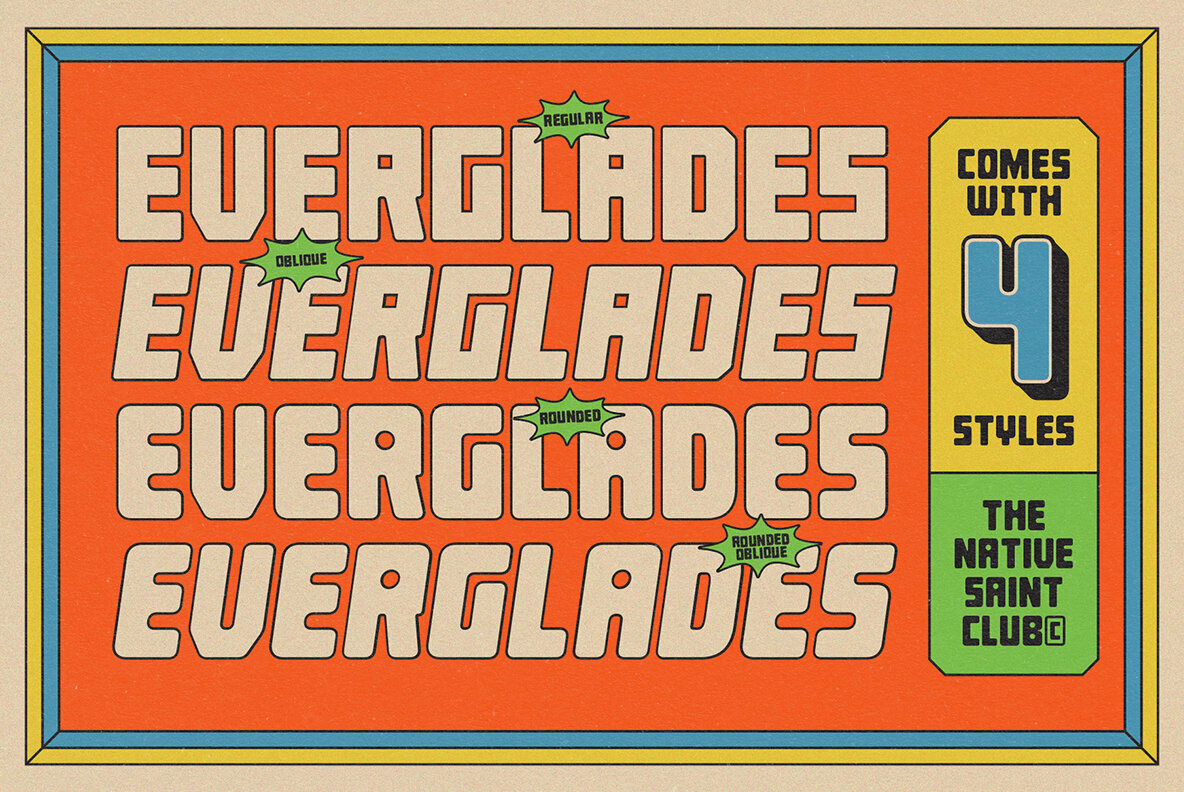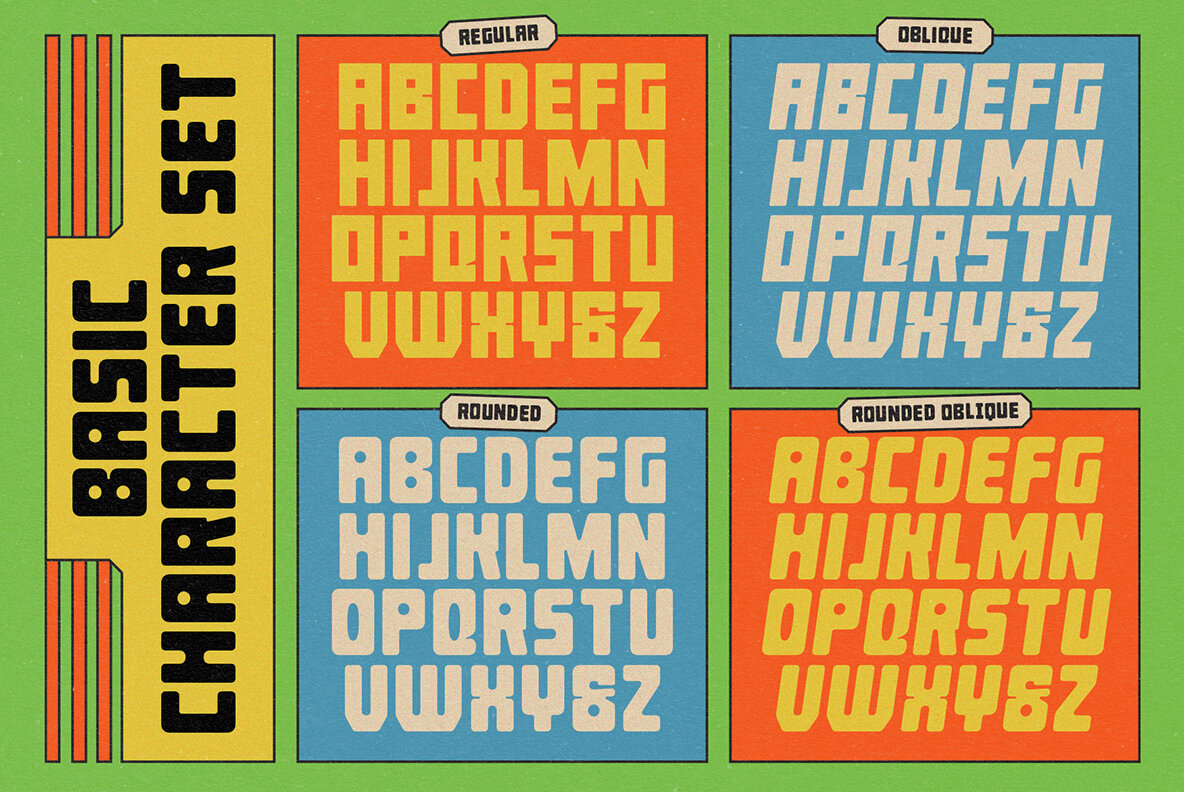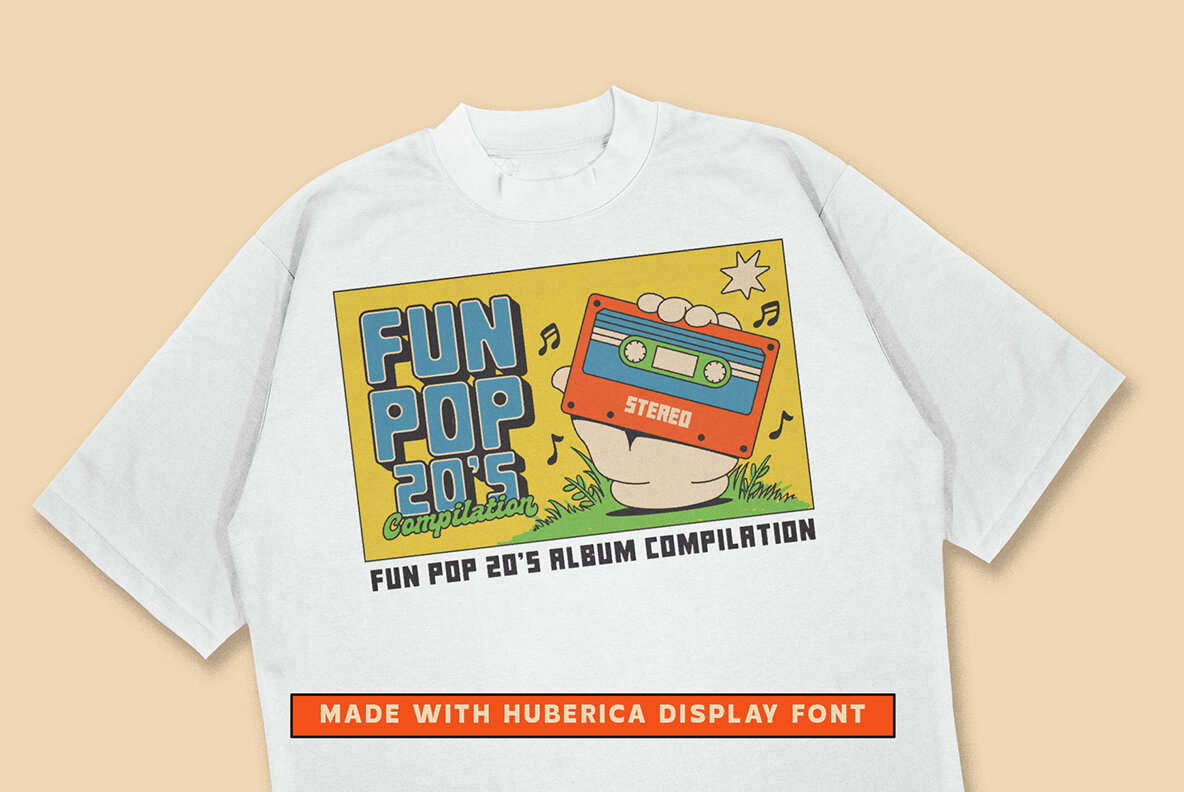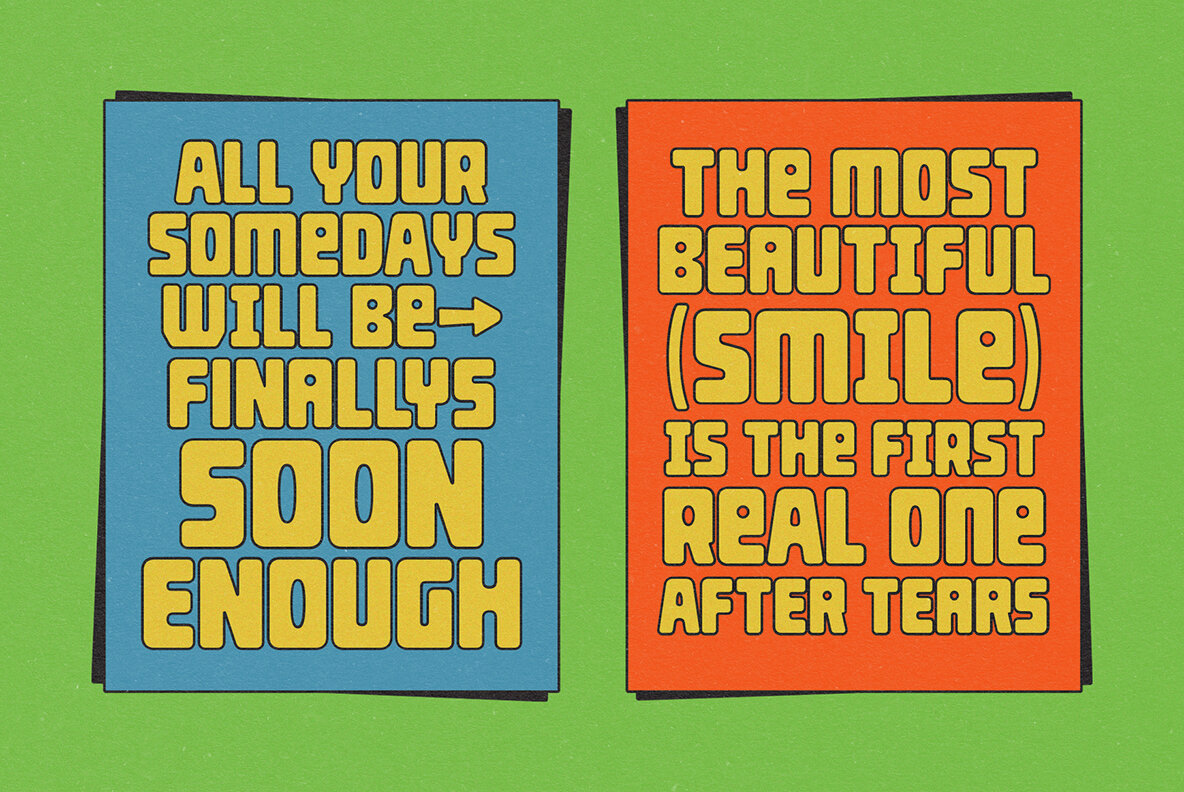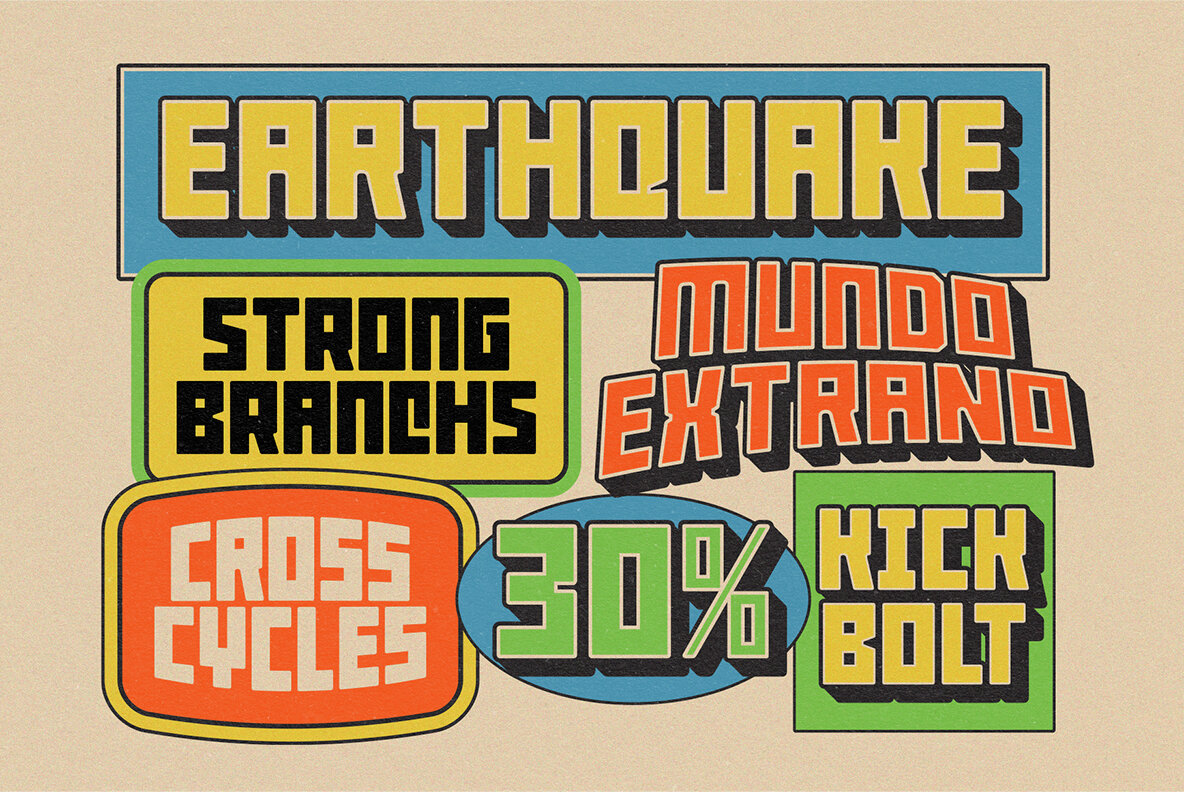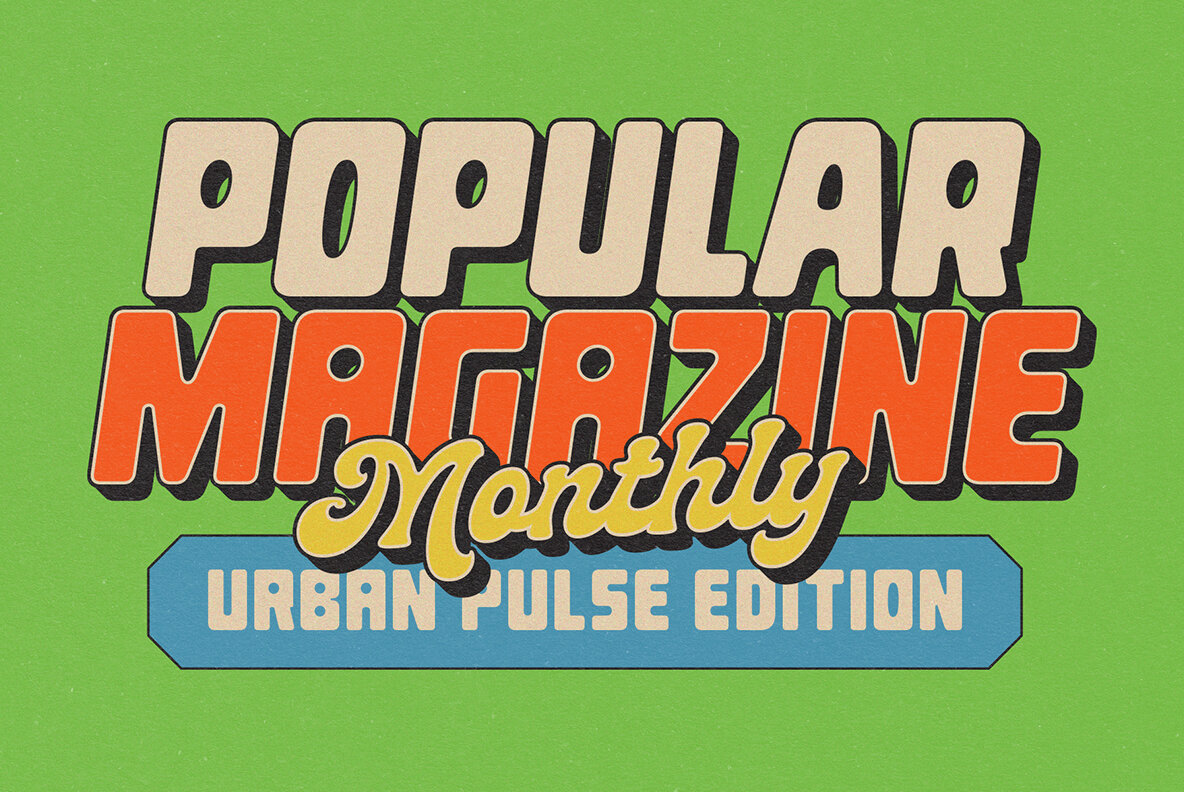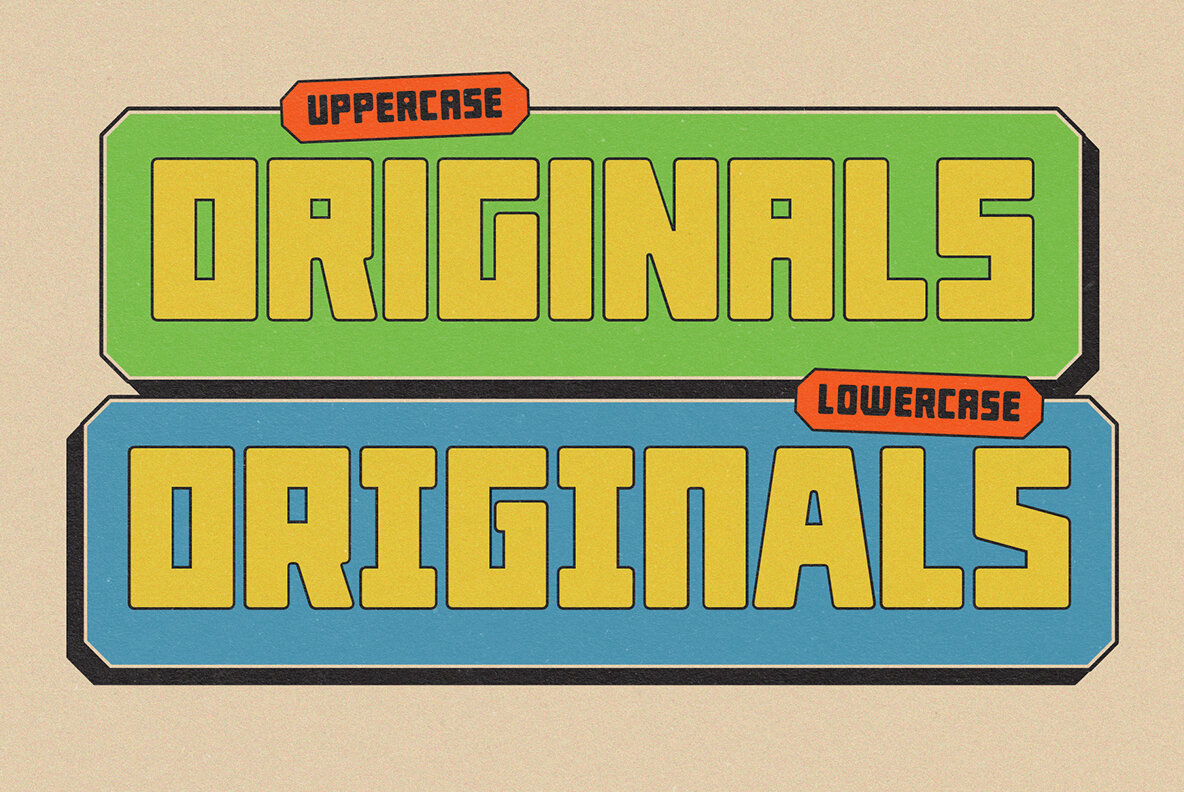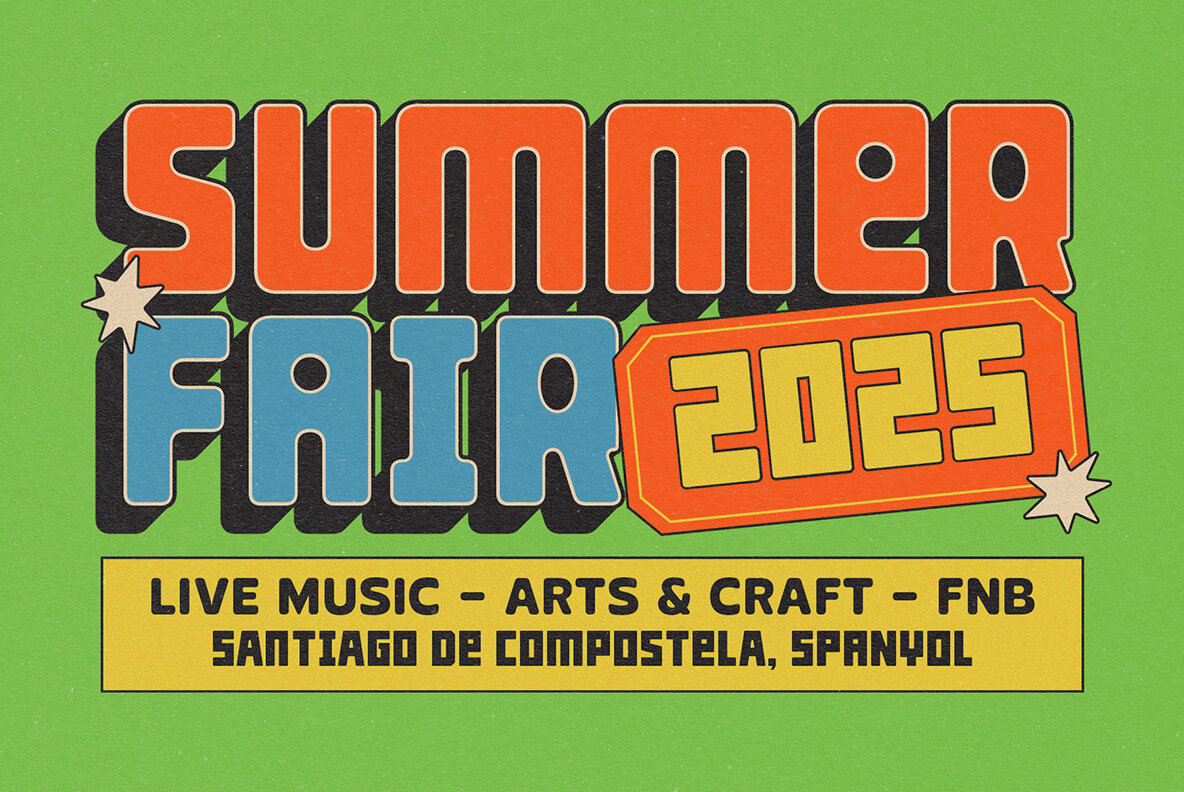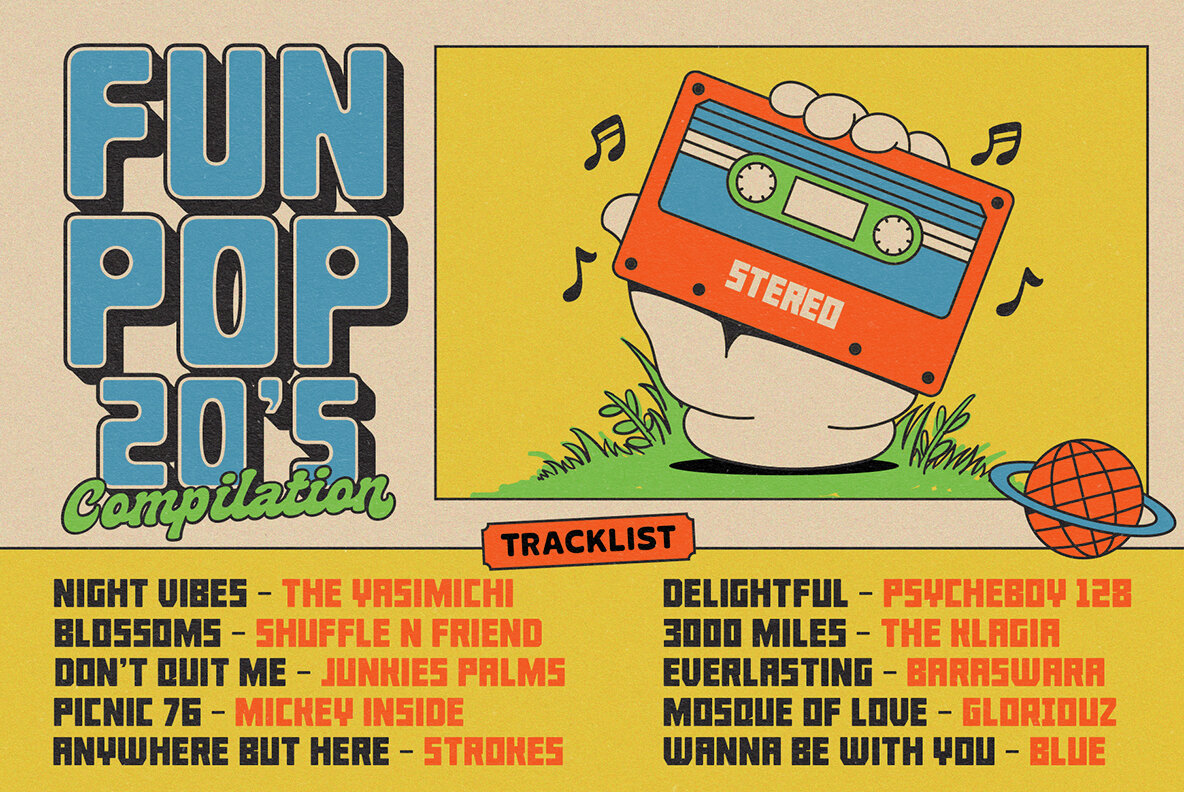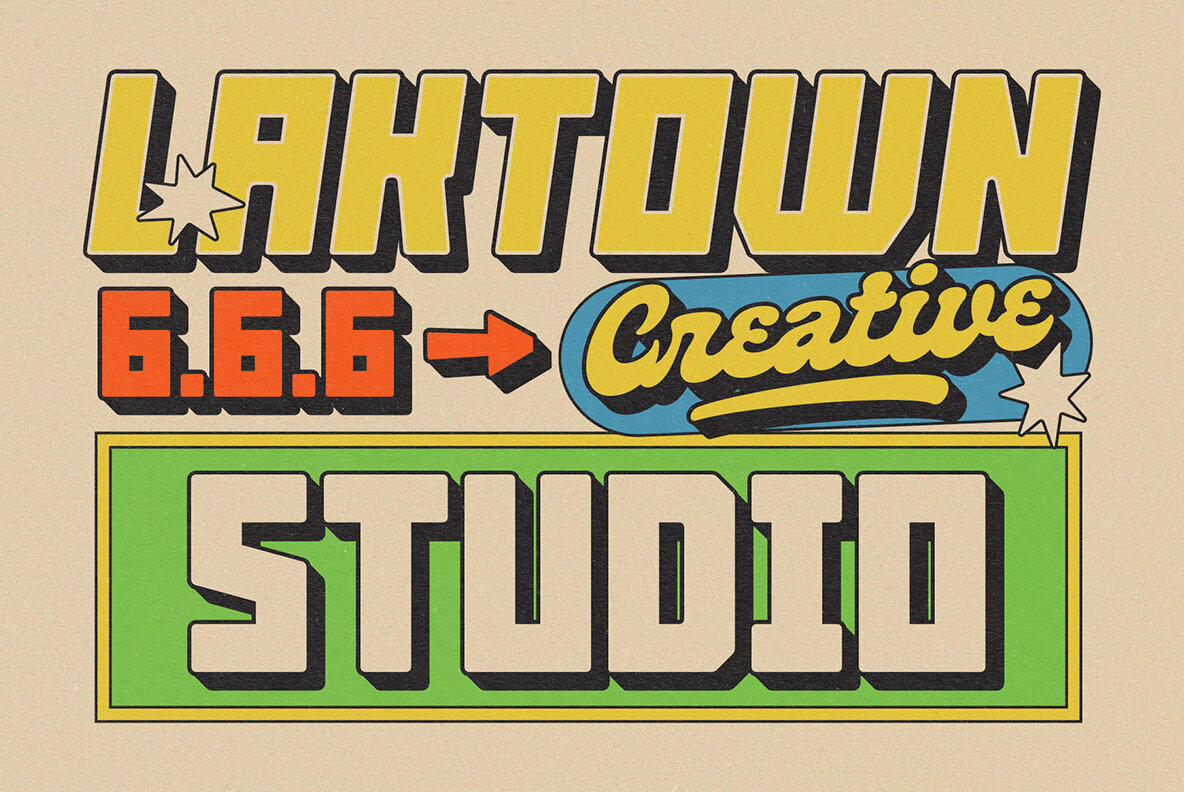
Huberica Font
Huberica Regular
Huberica Oblique
Huberica Rounded
Huberica Rounded Oblique
TNSC Huberica is a bold, square sans serif font inspired by 1980s poster designs, with strong geometric shapes and a vintage style, ideal for creating headlines as well as branding or posters. Huberica comes in four different styles: Regular, Oblique, Rounded, and Rounded Oblique. And versatile enough for a variety of design projects looking for a balance between modern and classic vibes!